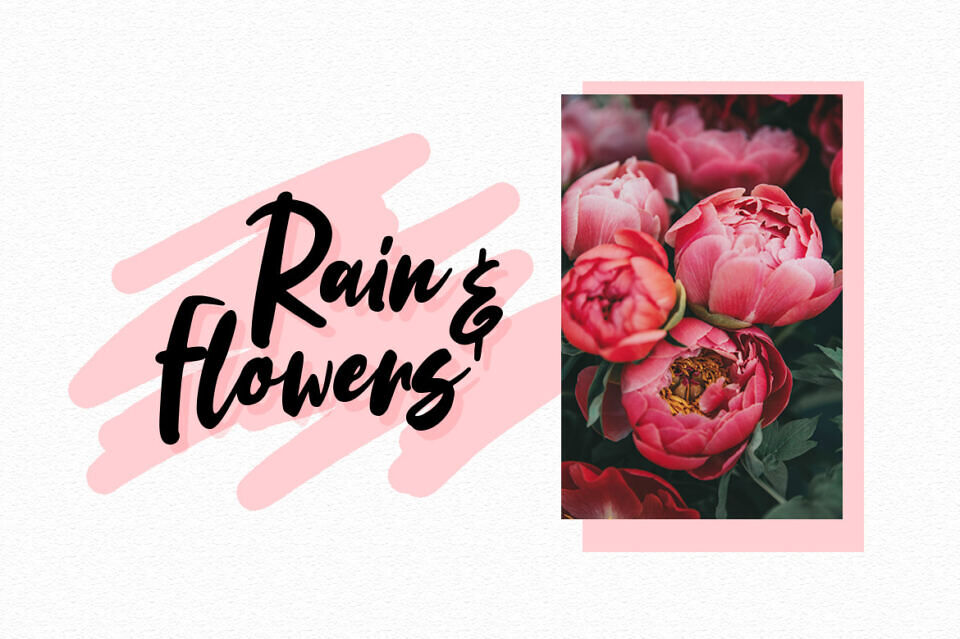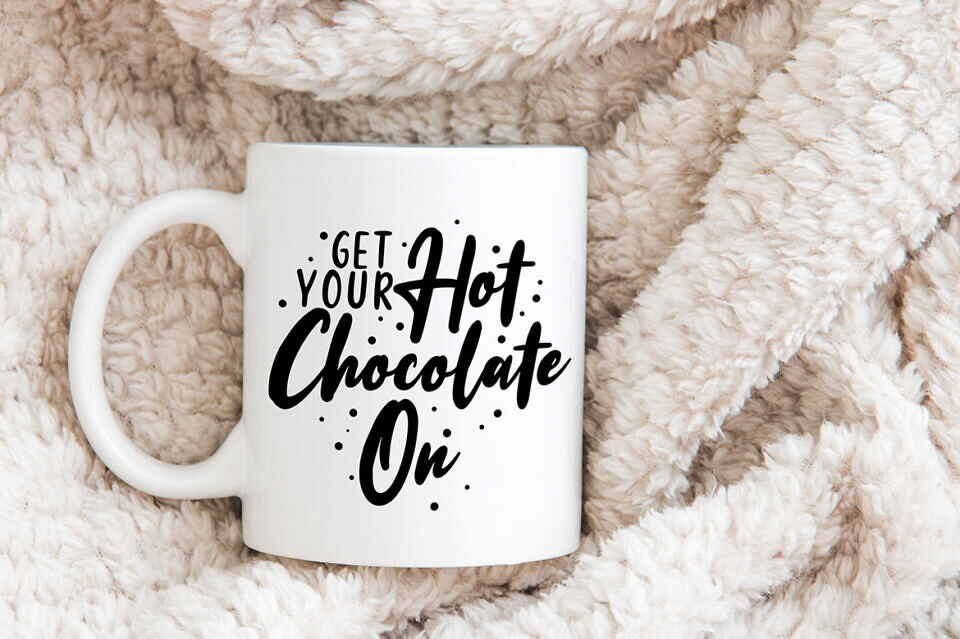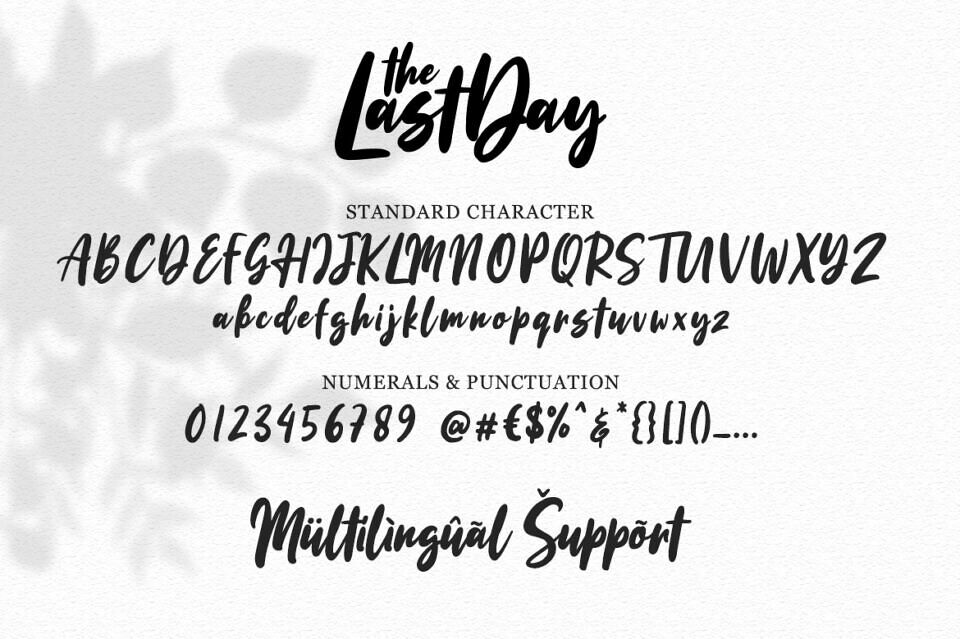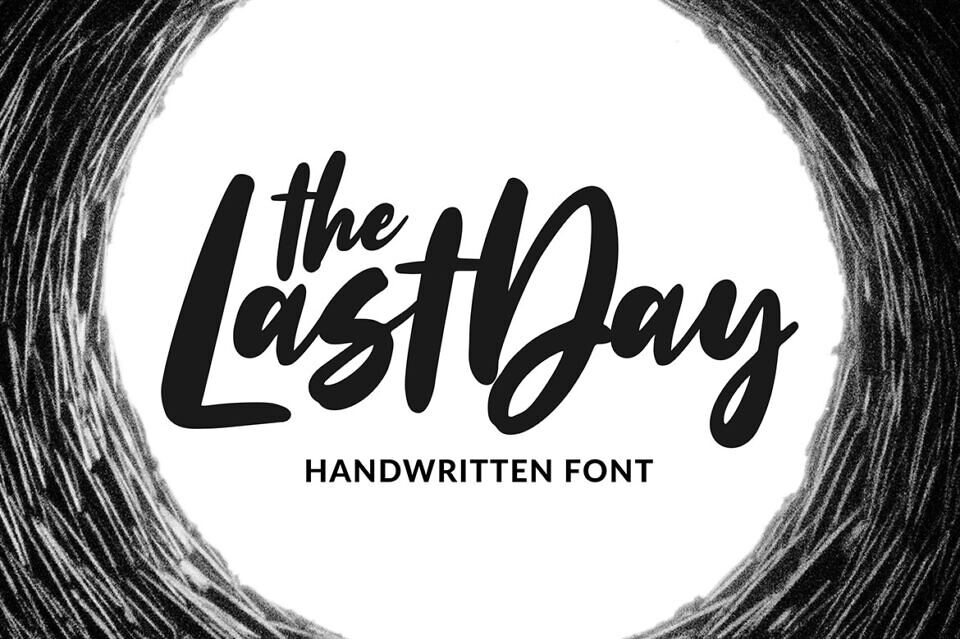
The Last Day Font
Meet “The Last Day” font, featuring natural, dry brush strokes that add a touch of beauty. Its quick, handwritten style makes it perfect for various uses, including signatures, branding, weddings, and social media titles.
It’s also great for fashion, photography, posters, book covers, packaging, quotes, greeting cards, and ads, adding a personal touch to any design.
Designed by: Weape Studio